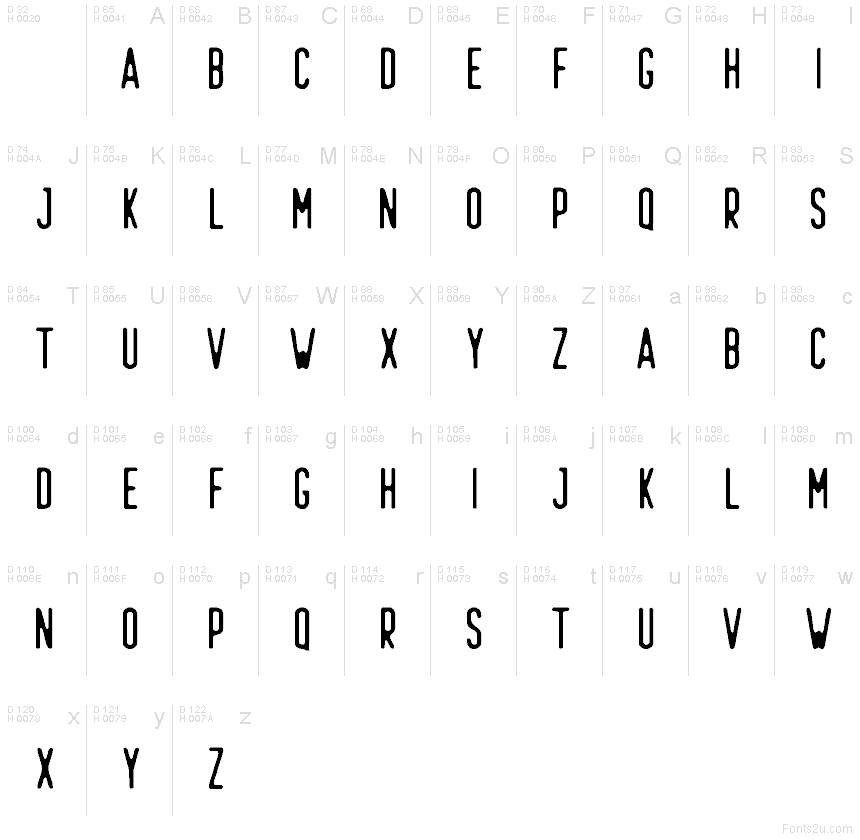
PrestageBlur-Regular Demo
Prestage Blur font by Craft Supply Co. is a display typeface with an erosive effect obtained from black drops spreading across each letter. Condensed in its overall structure, the font provides harmonious balance for any visuals and works flawlessly where uniformity matters. Its clean finish secures a more polished outcome while still maintaining an imperfect grunge-like feel.
The free display font is suitable for magazines, newspaper titles, book covers, posters, and signage. Use it to showcase business cards and typography-centered logos. Produce stunning headings and banners for fashion brands or retail stores—both online and physical ones. Packaging items such as makeup or perfume bottles are also appropriate applications.